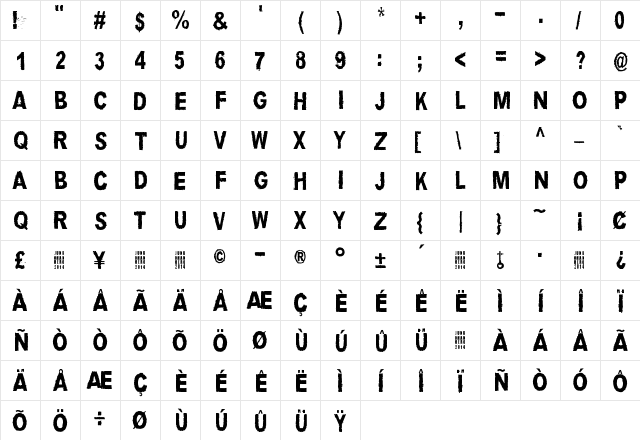
Louis Cypher Regular
Design Context for Louis Cypher Typeface
Louis Cypher is a composed and adaptable typeface that performs quietly and consistently across a wide range of design contexts.
Pro Tip: Use Louis Cypher in both headline and body roles to test its range before committing to a single application.